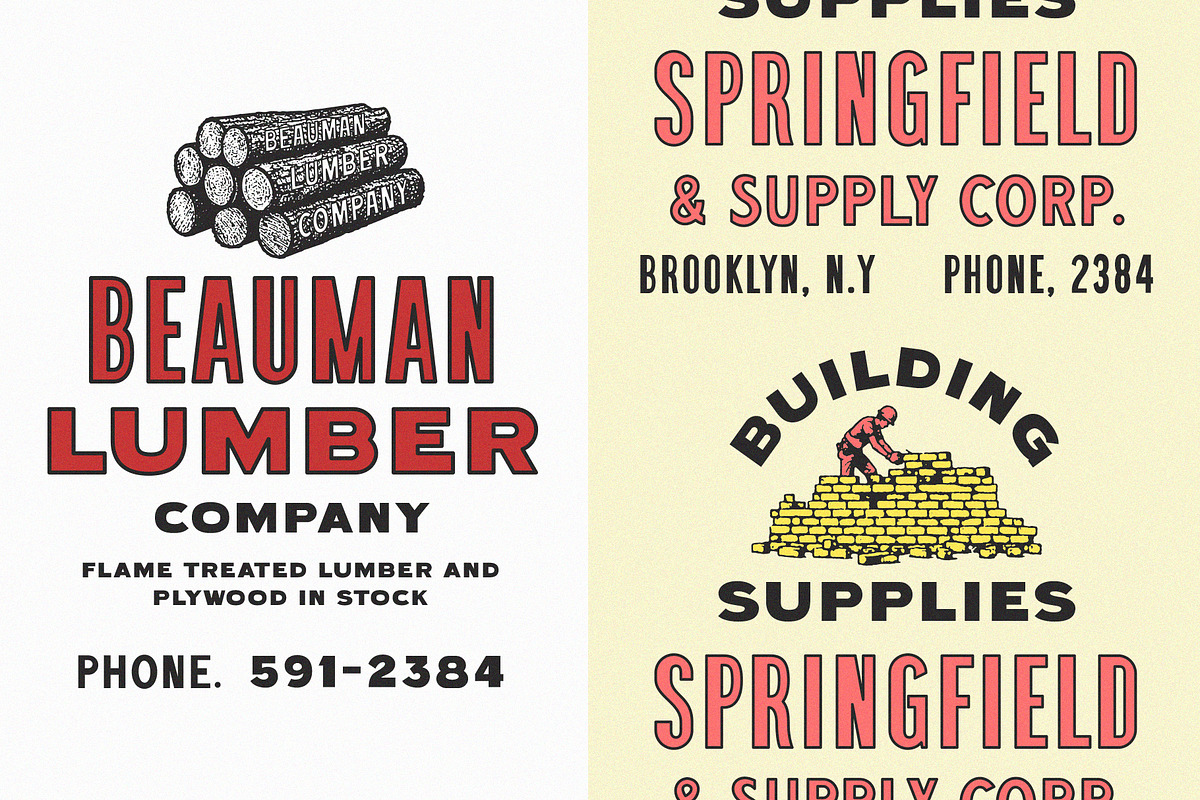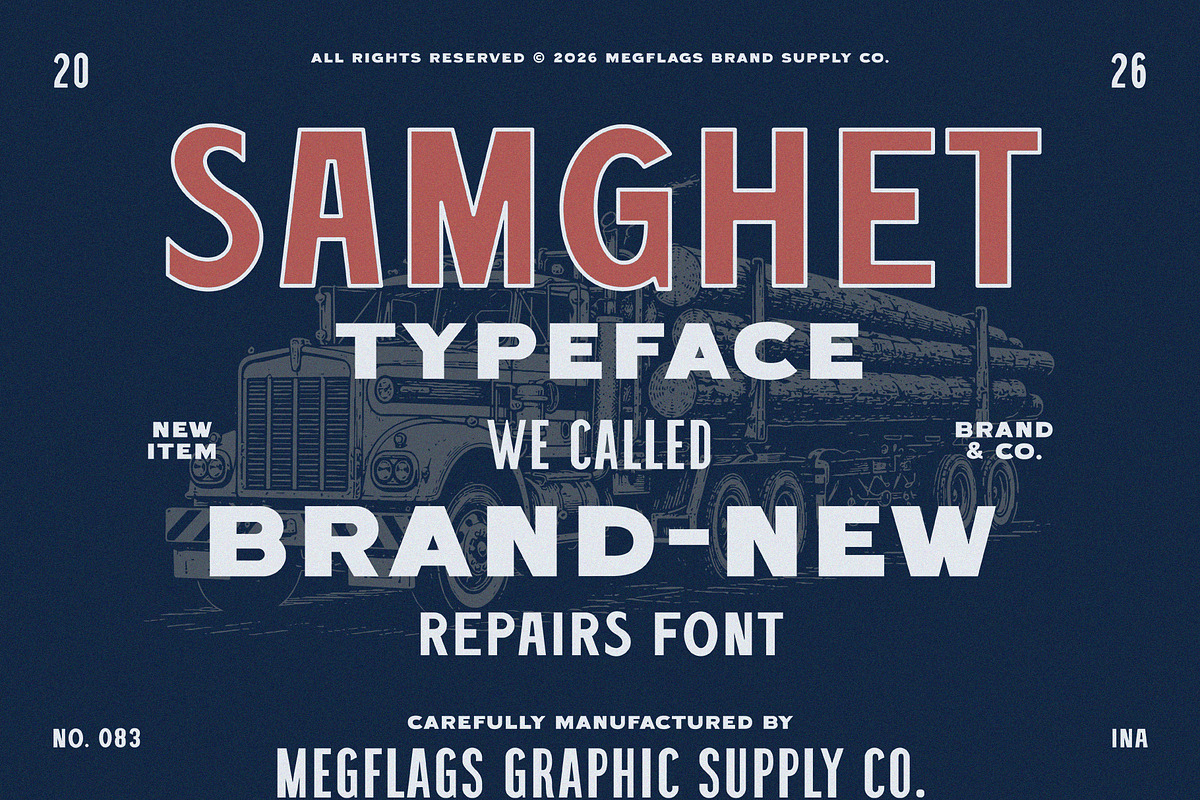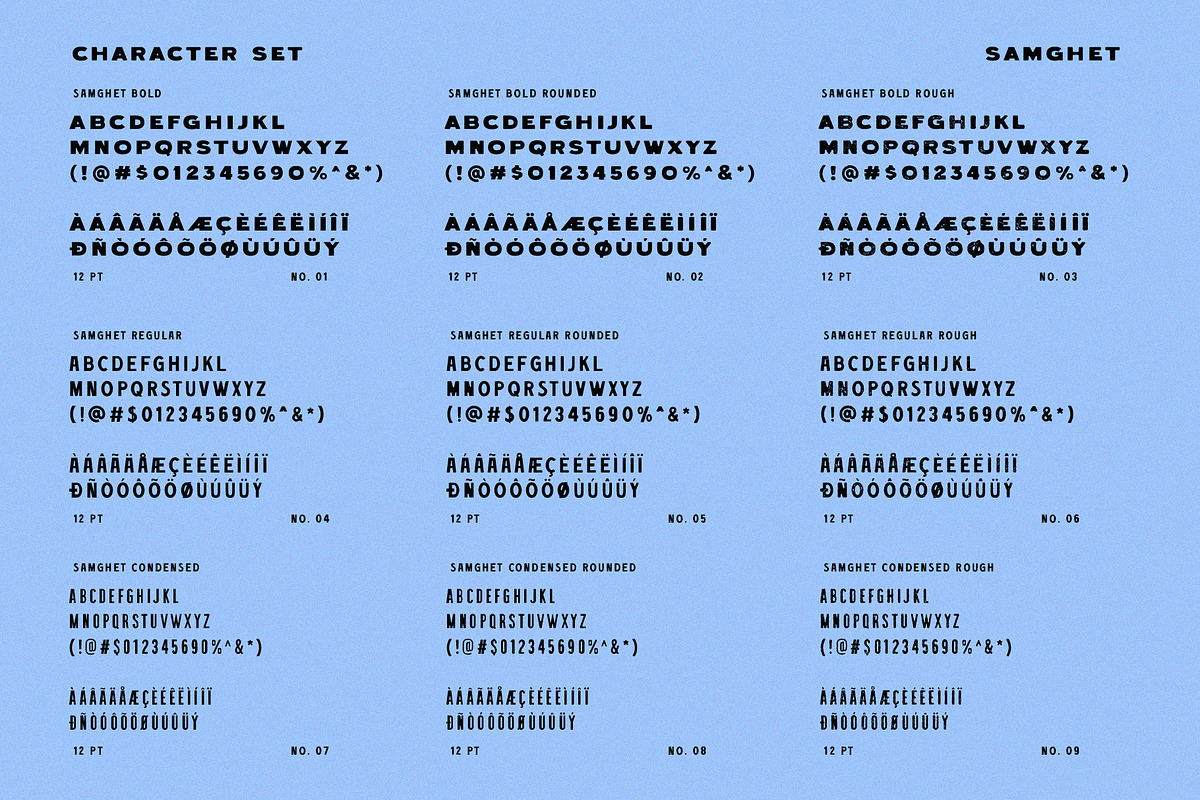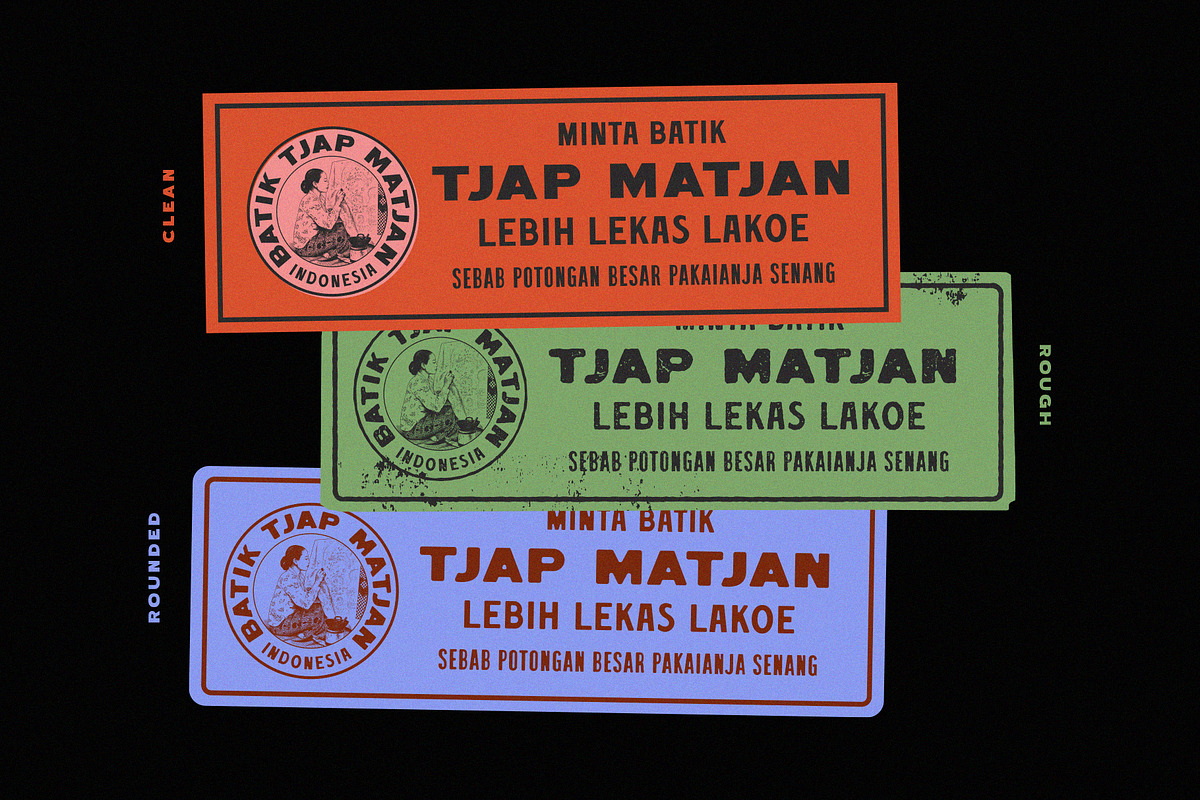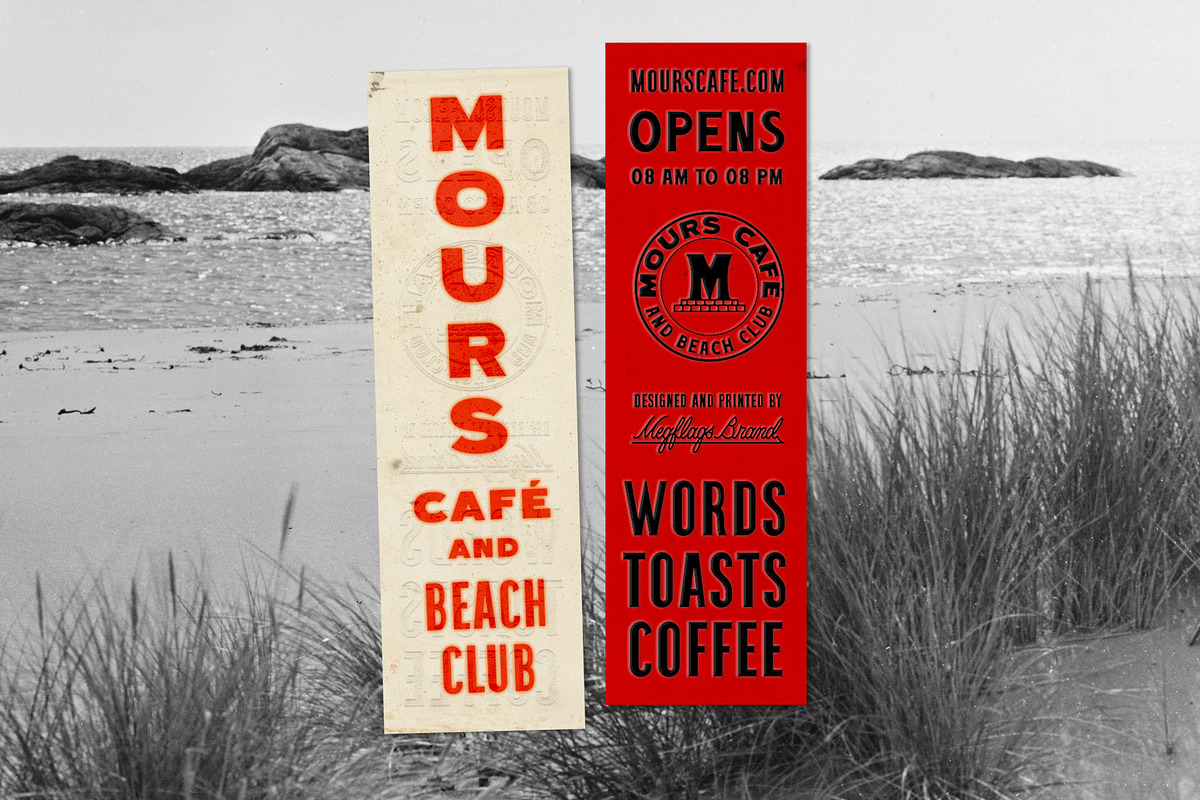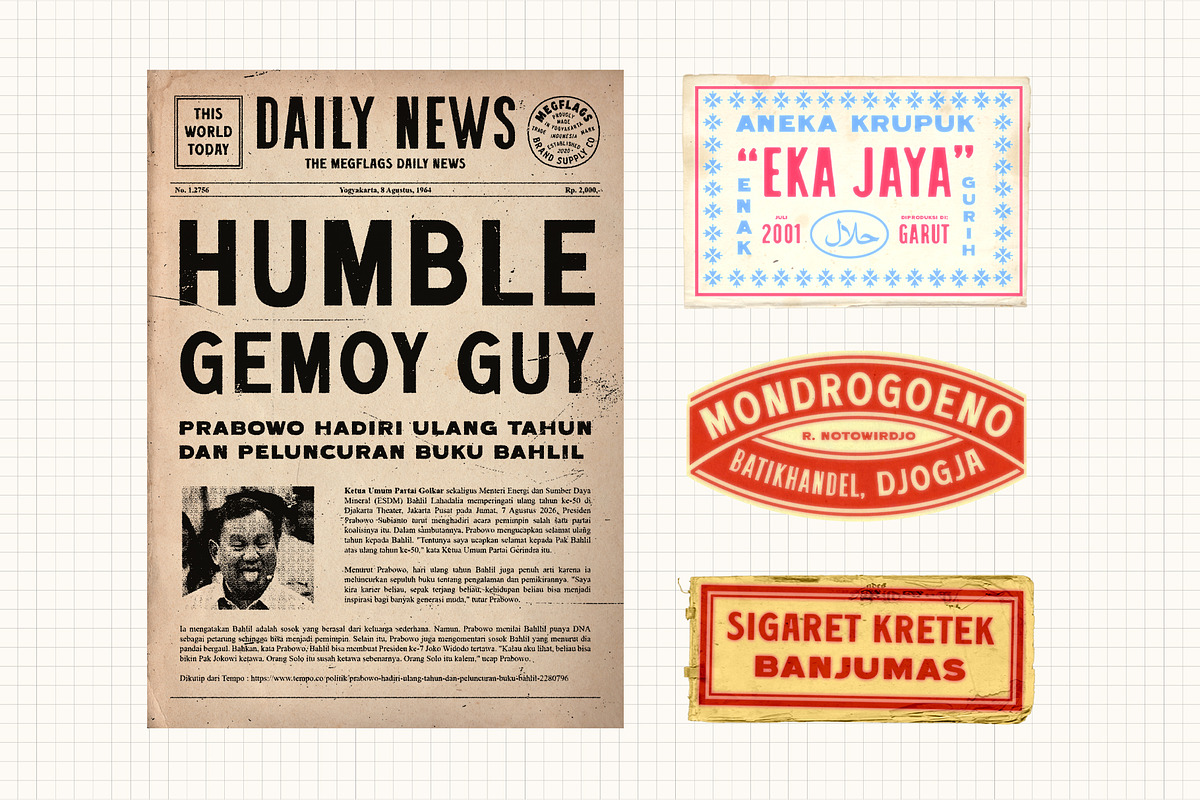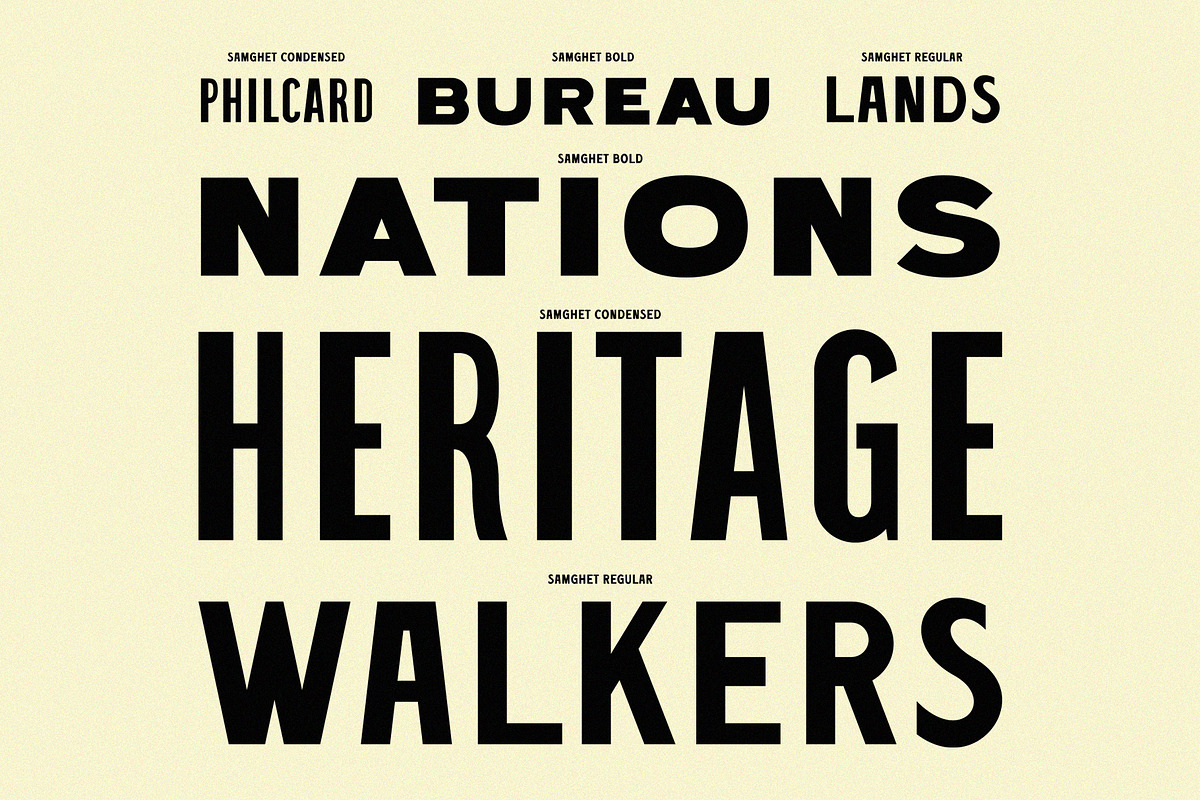
Samghet
Samghet is a 1960's vintage-inspired display typeface built around the bold, straightforward lettering found on old industrial signs, lumber companies, supply stores, newspaper advertisements, and workwear graphics.
**Regular, Bold & Condensed. **Also Rounded and Rough featured too. Multilingual support.
Samghet works especially well for designs that need an authentic American industrial, heritage, hardware, lumber, automotive, outdoor, or workwear aesthetic.